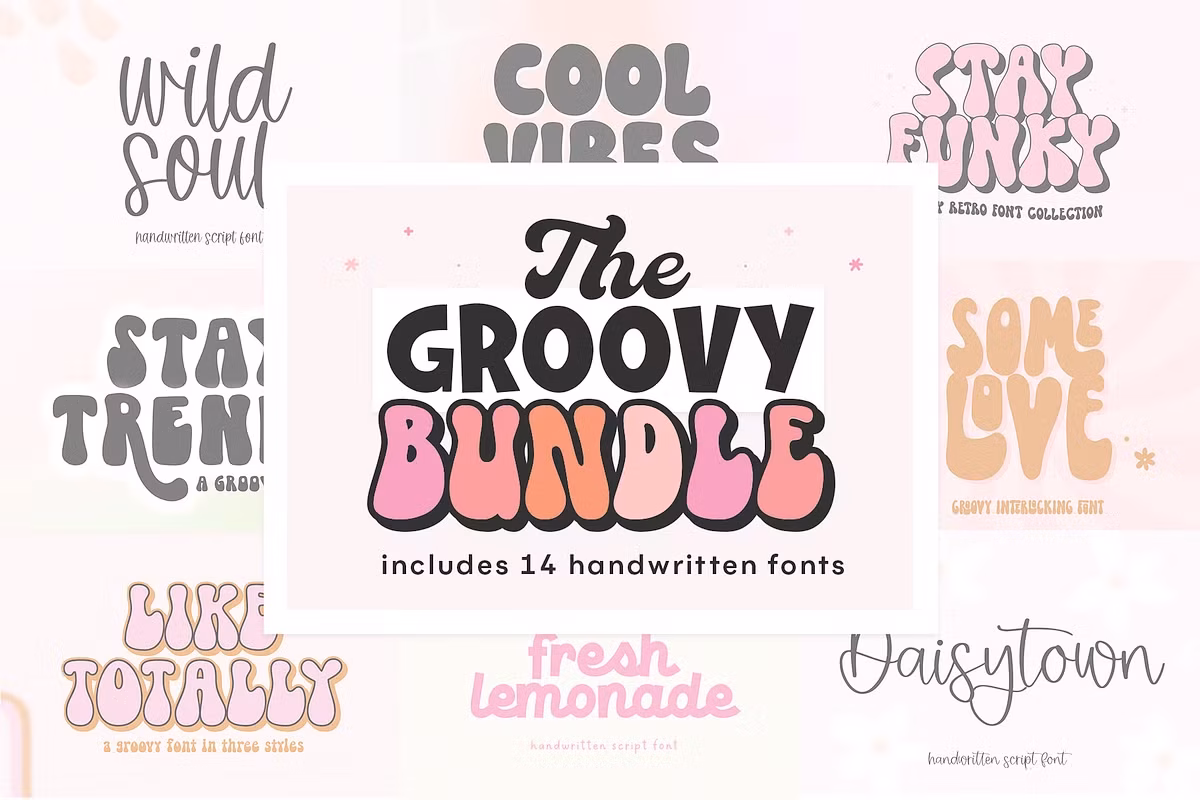
Retro Font Bundle | 14 Groovy Fonts Free Download is a vibrant and playful collection of 14 fonts, each capturing the fun and funky aesthetic of the '60s and '70s. Perfect for creating nostalgic designs, this bundle is ideal for logos, posters, social media graphics, branding, and any creative project that needs a retro touch.
The fonts in this collection offer a range of bold, rounded, and whimsical letterforms, making them perfect for projects that need to evoke a sense of nostalgia, energy, and fun. Whether you’re working on a music event poster, retro-themed brand, or vintage advertising, this bundle provides everything you need to create groovy designs.